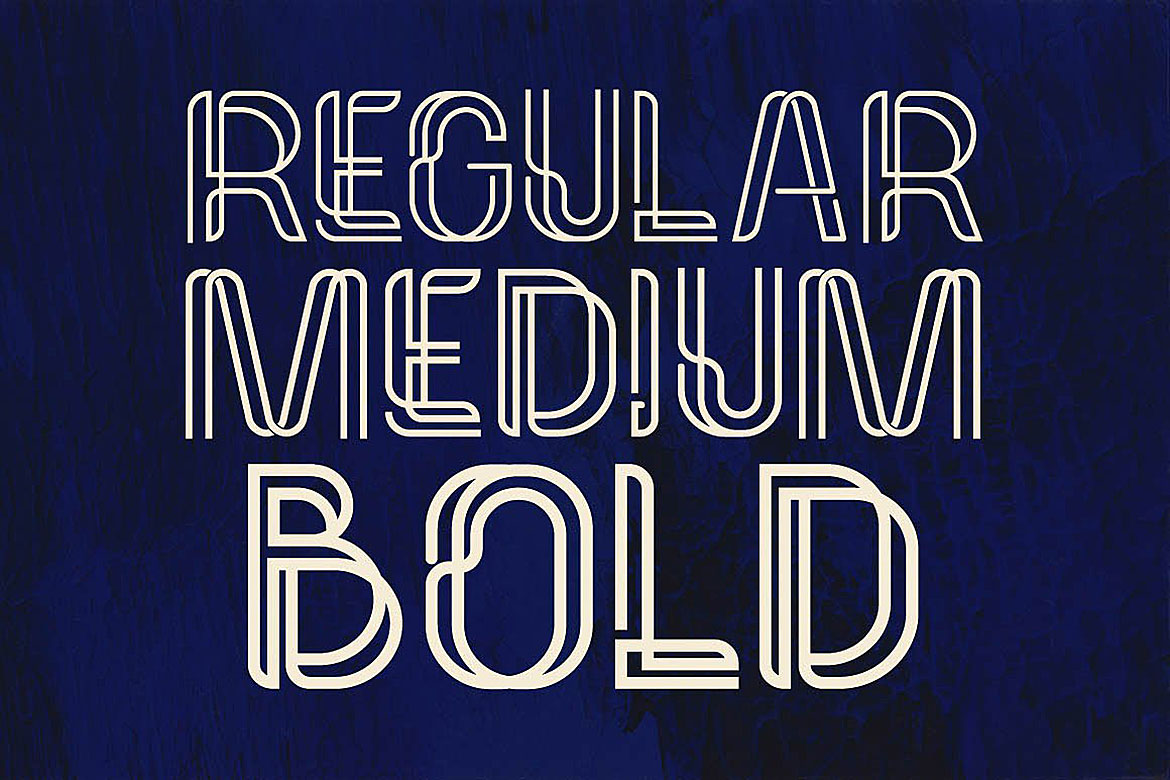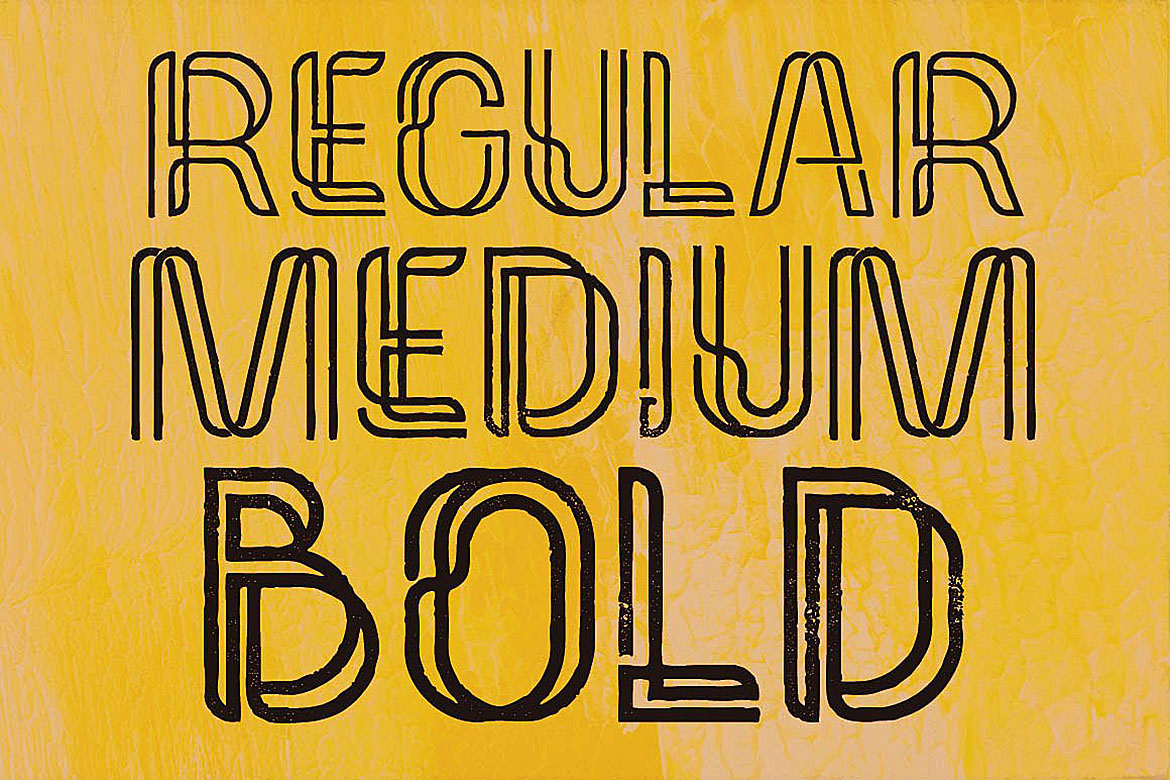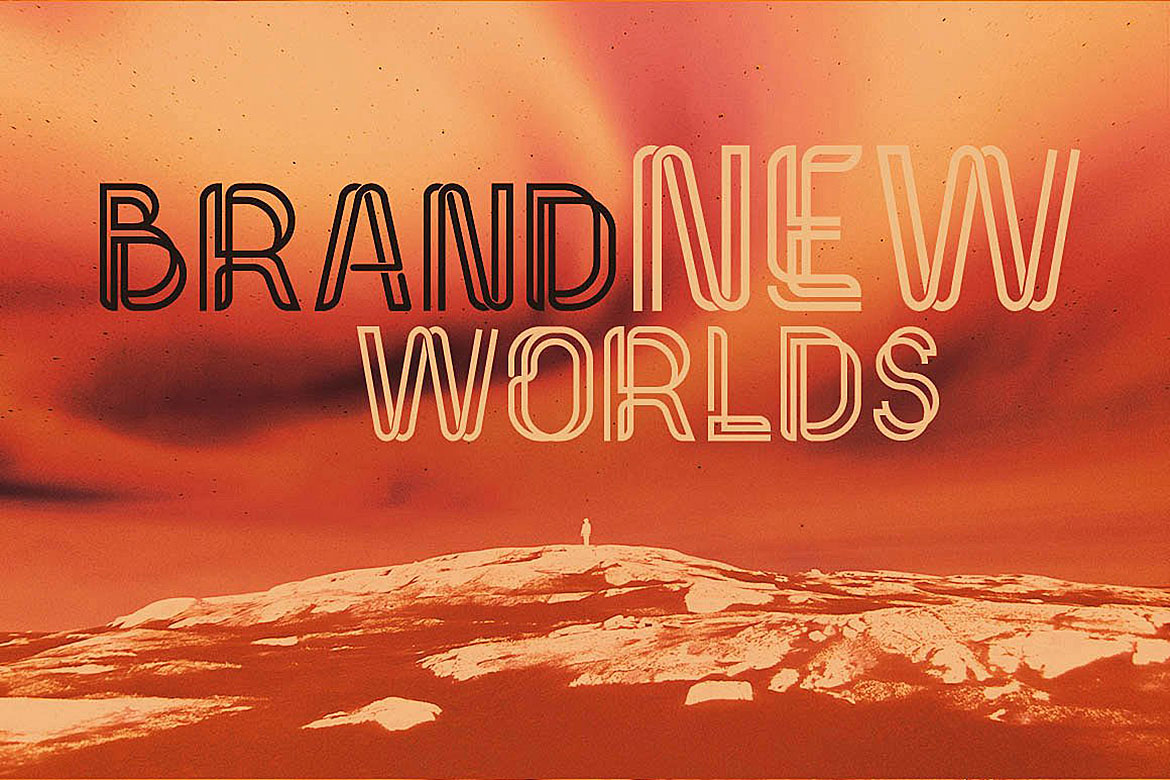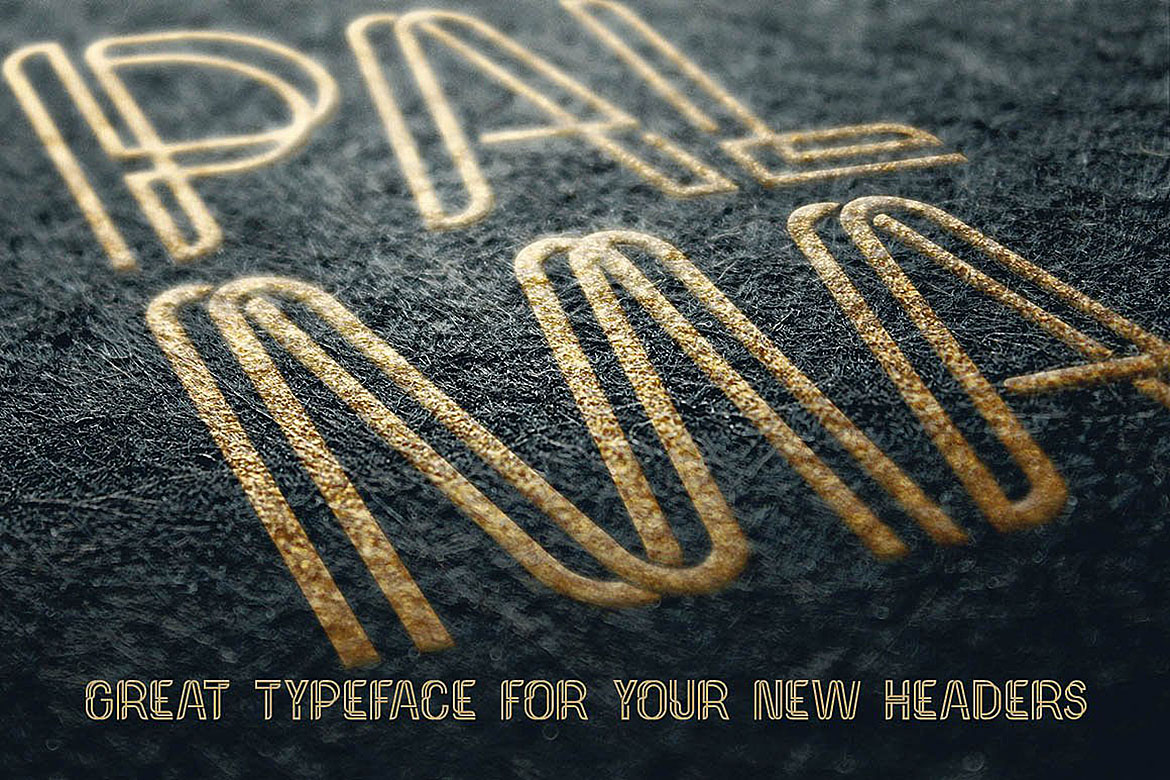
Introduction to Palma Font
Palma is a beautifully intricate and woven styled font, suitable for displays and headline styled typographic elements.
This creative and modern font style is stunning standalone, or complemented with other fonts for a truly unique designscape .